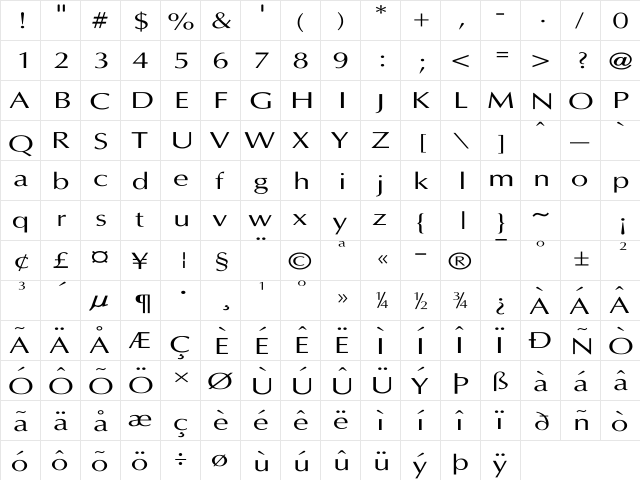
Last Uniform Regular
| Designer | S. John Ross |
Design Context for Last Uniform Typeface
Last Uniform is a composed and adaptable typeface that performs quietly and consistently across a wide range of design contexts.